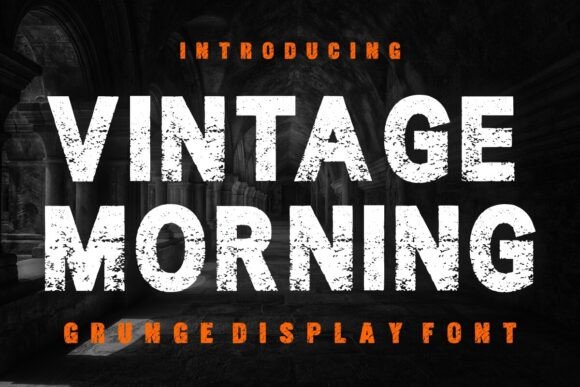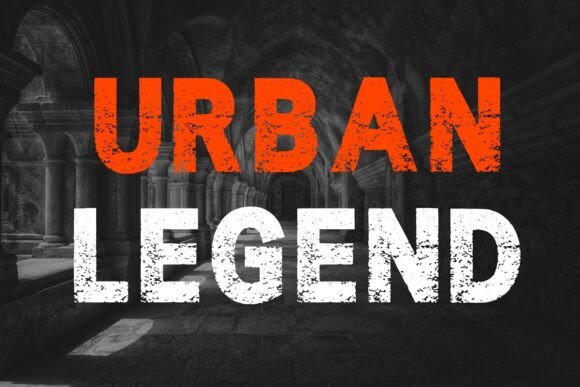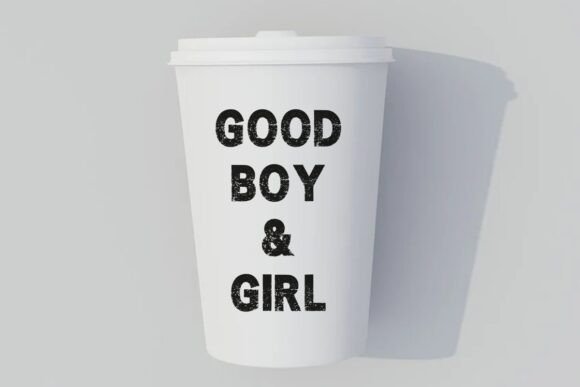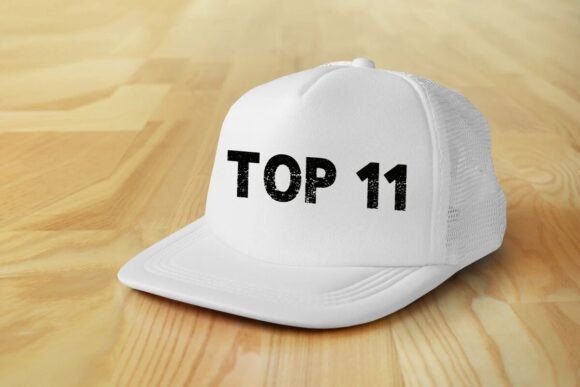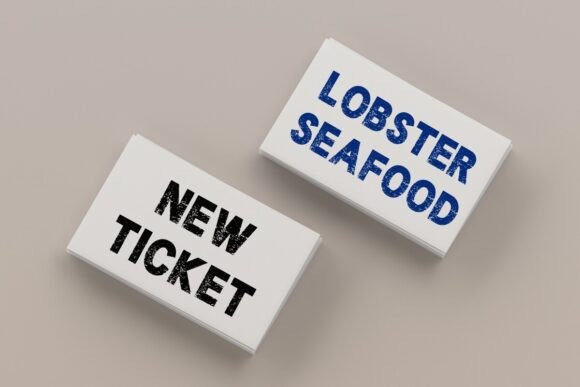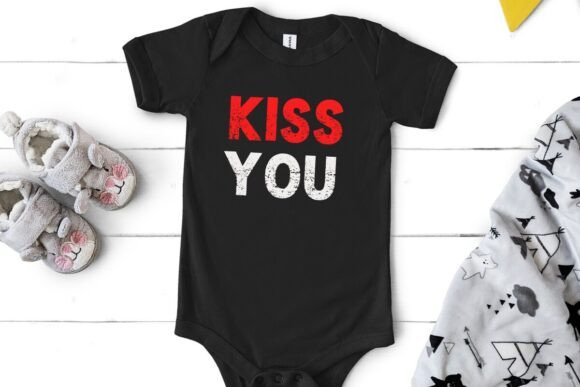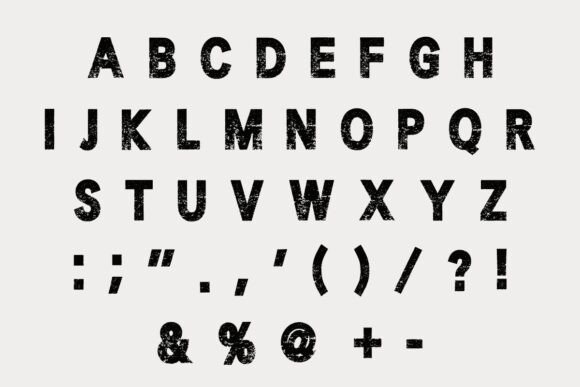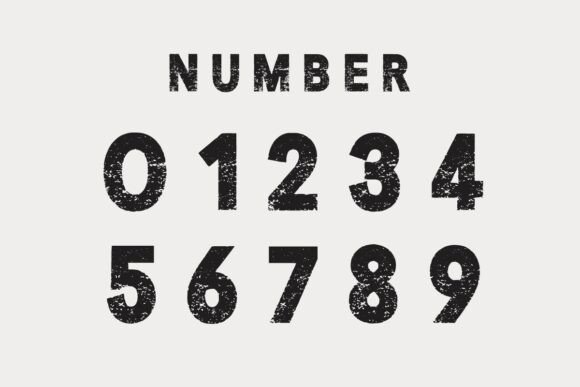
Vintage Morning Font
Vintage Morning is a bold grunge display font with a raw, textured finish that feels perfectly worn and rugged. Designed to grab attention, its distressed letterforms are ideal for posters, album covers, retro branding, and urban-inspired visuals. Whether you’re crafting something vintage or just want bold with an edge, this font delivers gritty character and strong presence.